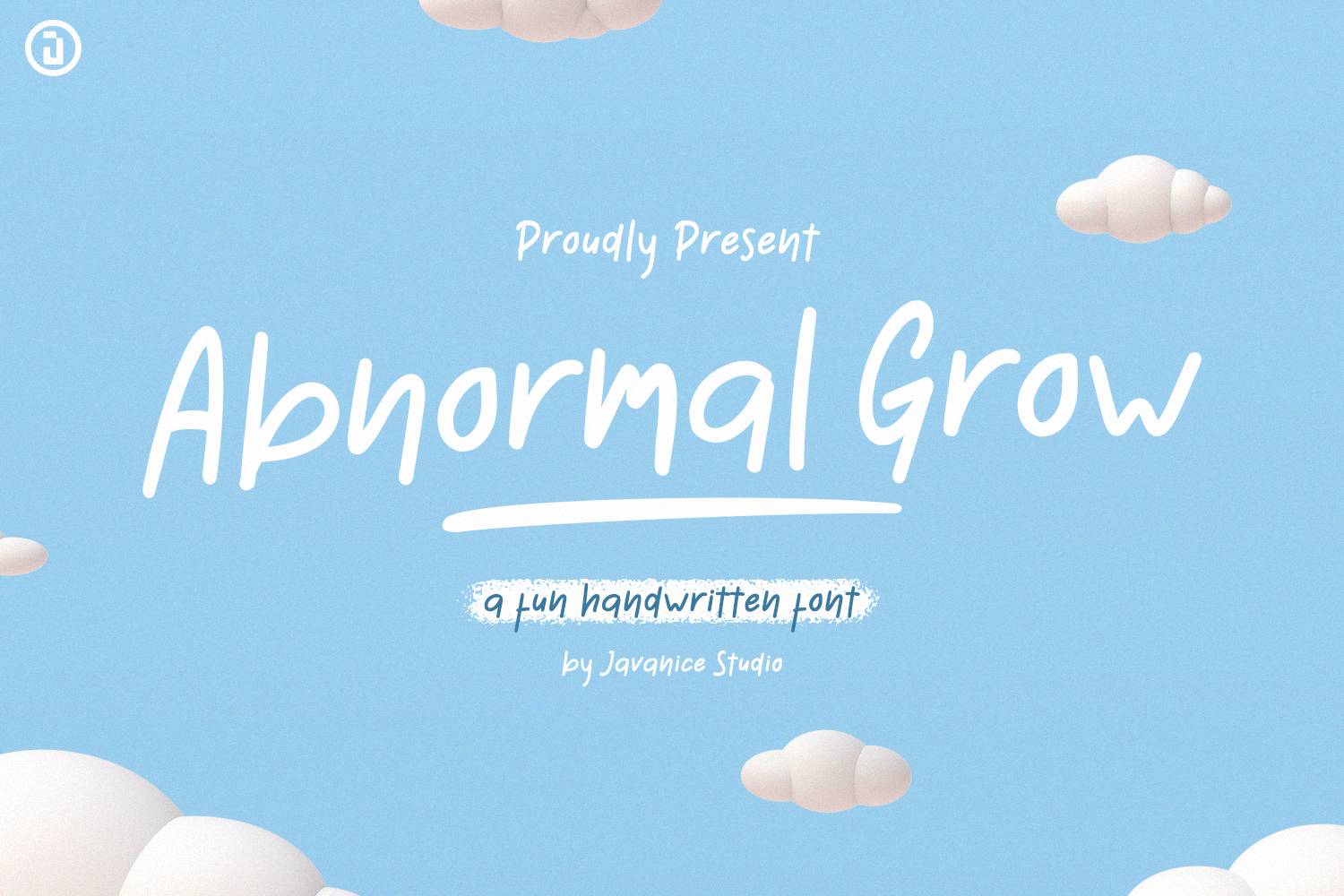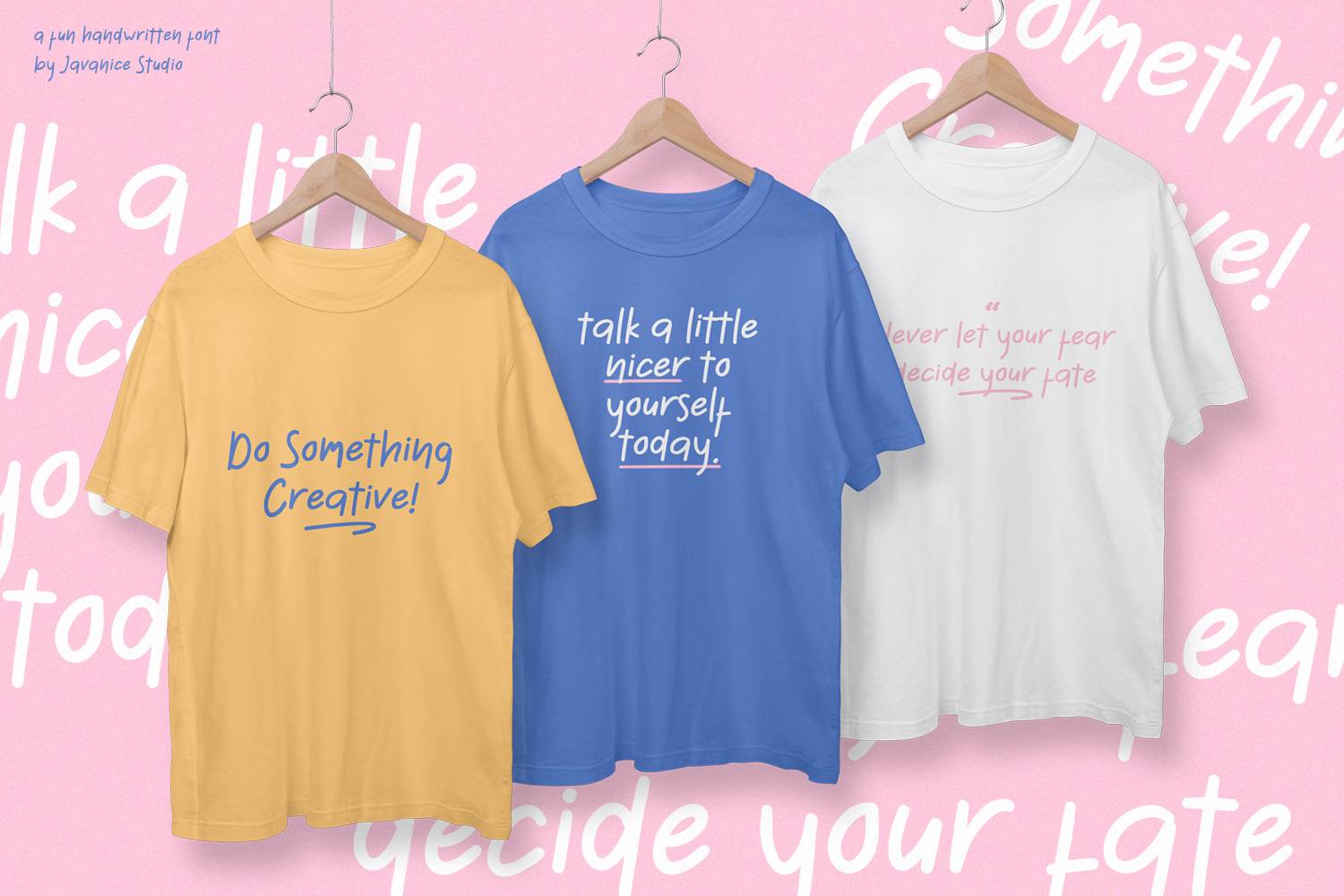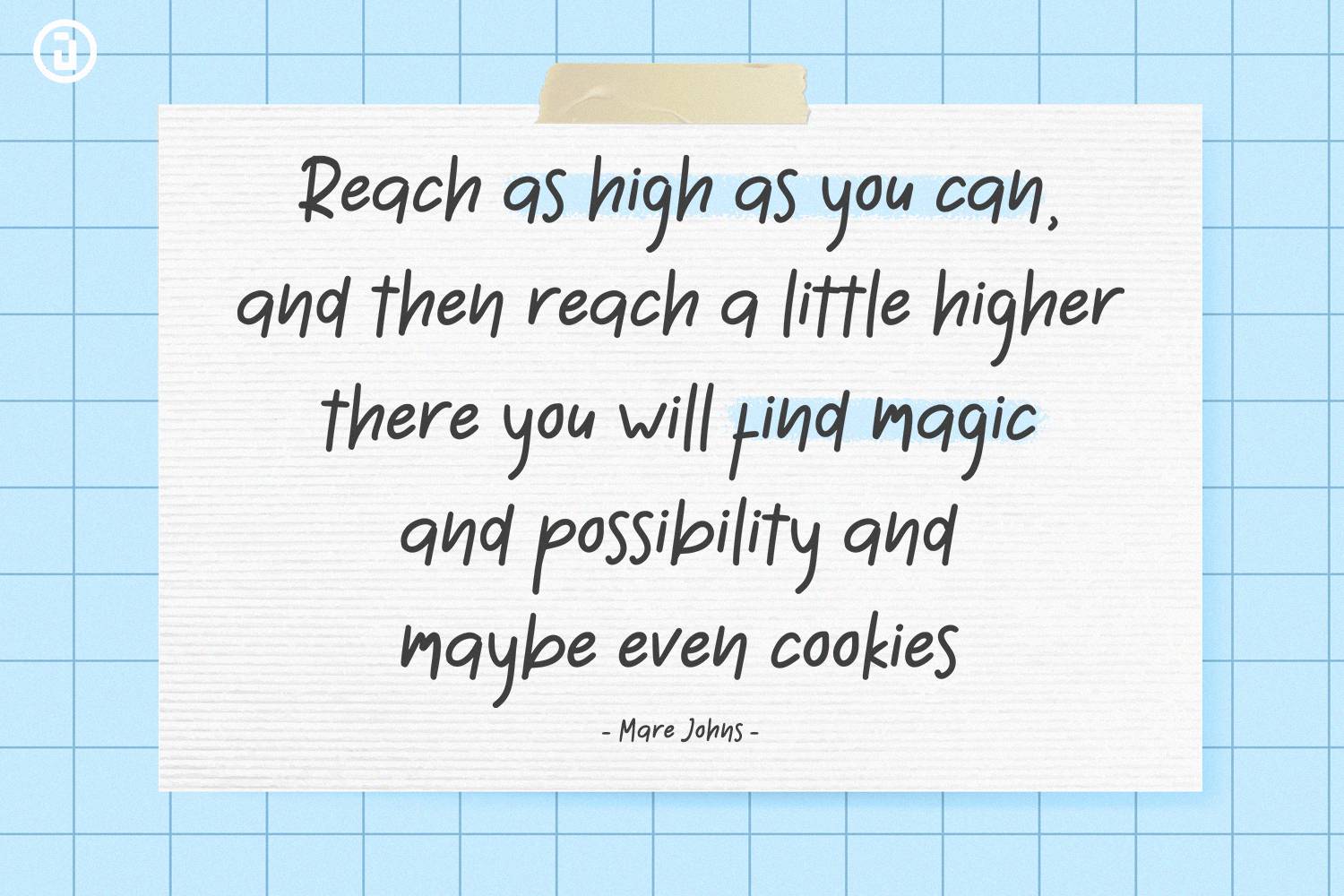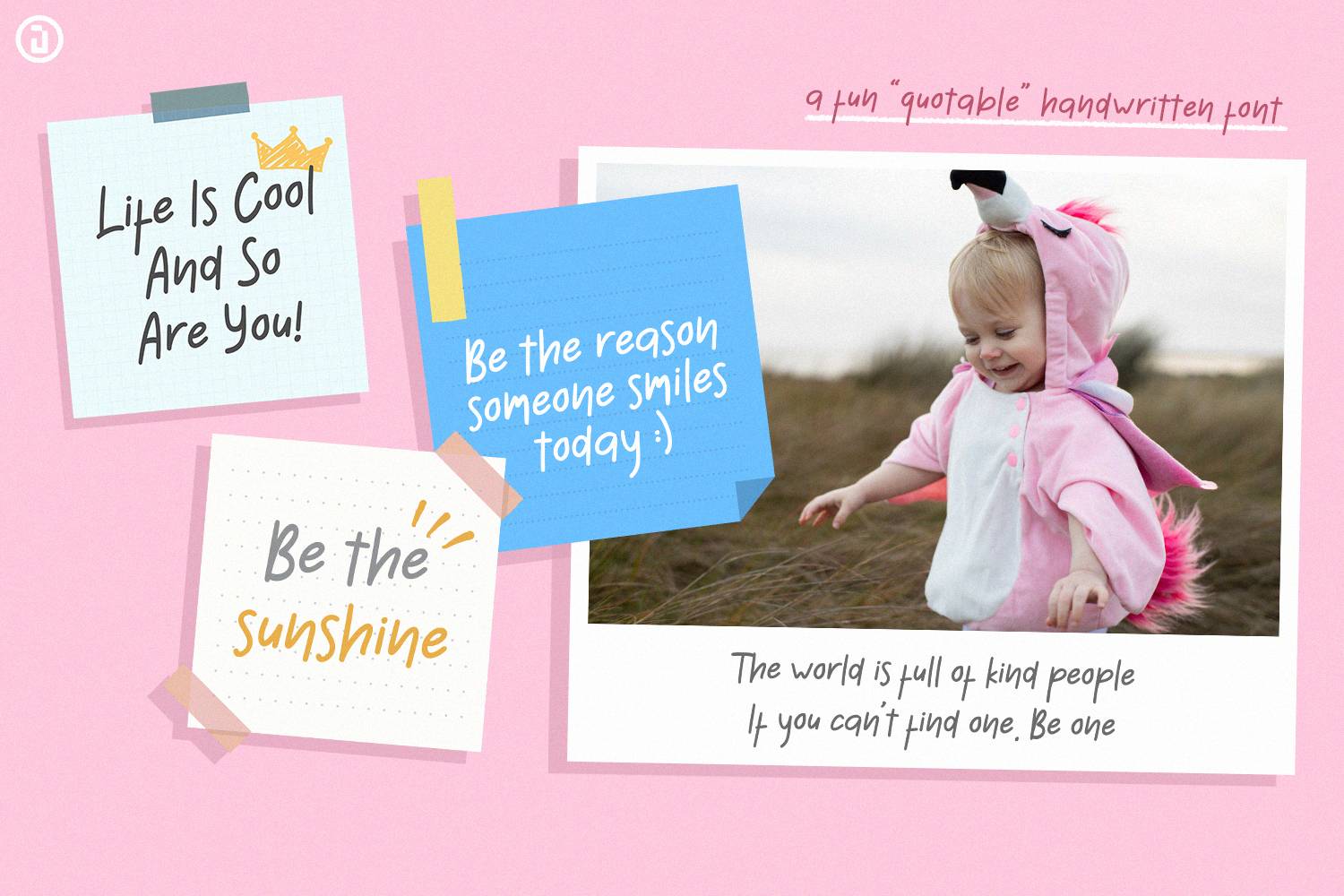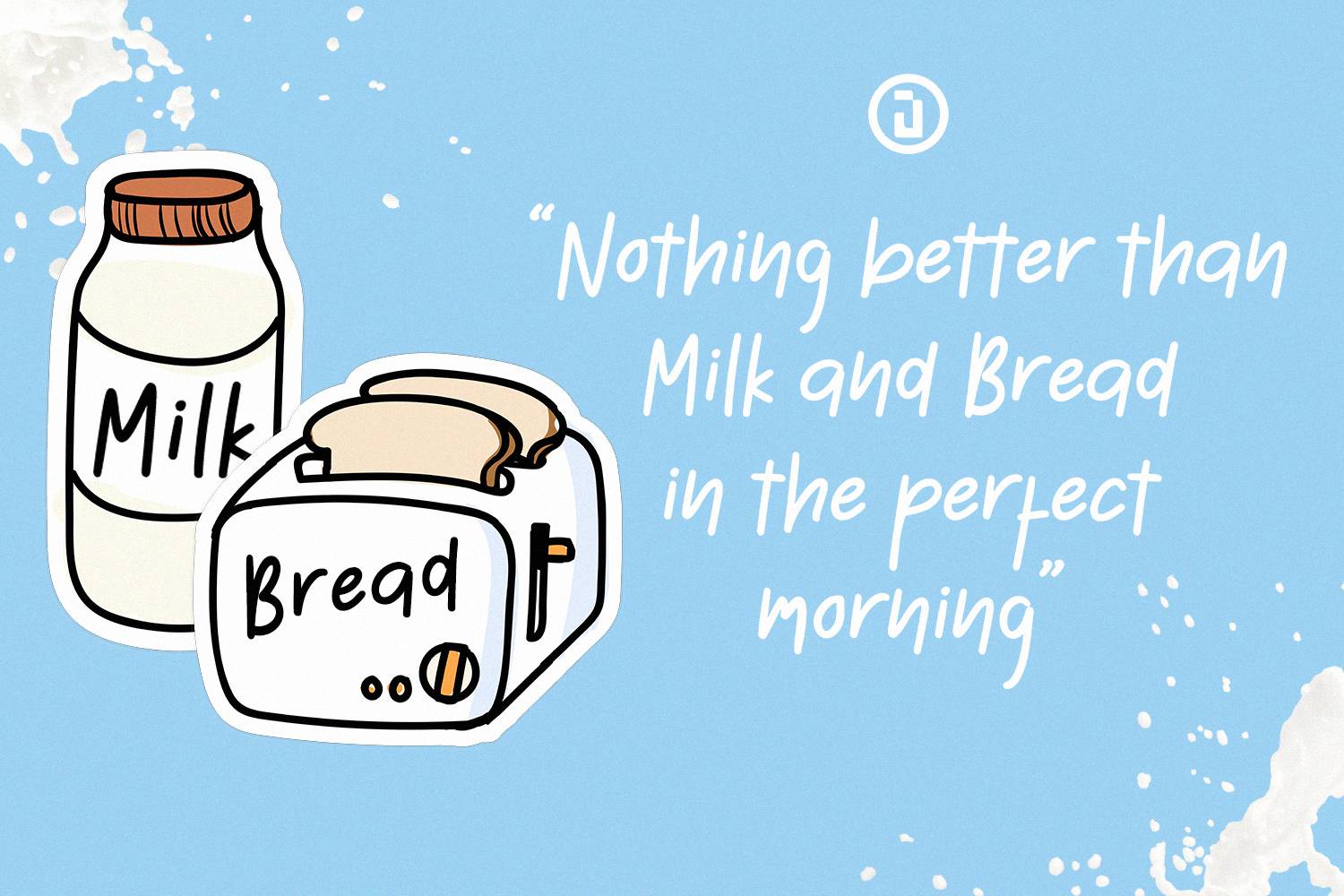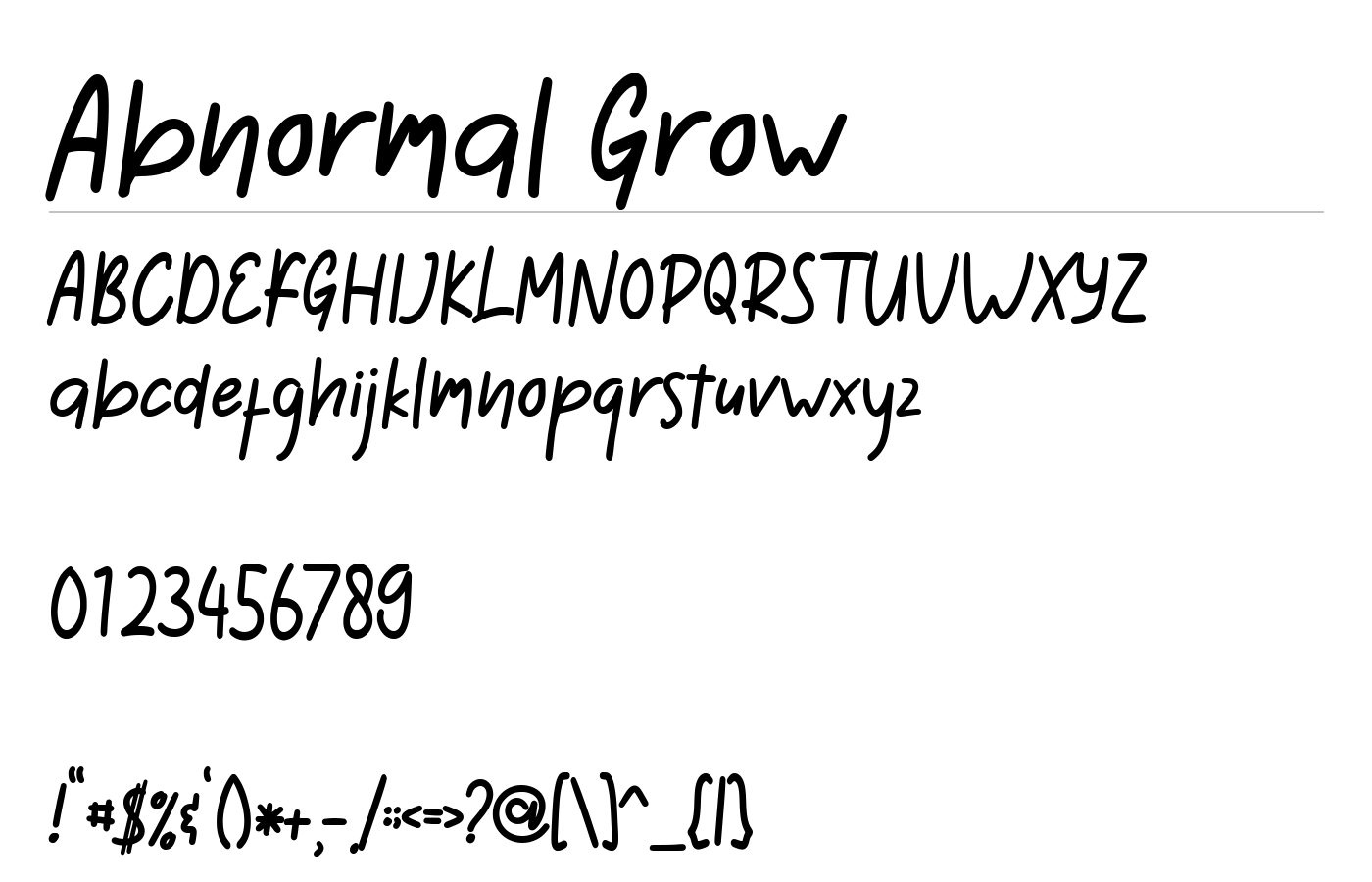
Abnormal Grow is a playful and informal handwritten font with a lively, slightly irregular style that gives it a personal and approachable feel. Its narrow, upright letterforms feature a casual stroke with moderate contrast, making it well-suited for creative projects, children's materials, and branding that seeks a friendly, authentic touch. This font excels in designs that benefit from a warm and humanistic vibe, such as invitations, posters, and social media graphics.
Abnormal Grow Font
About Abnormal Grow Font